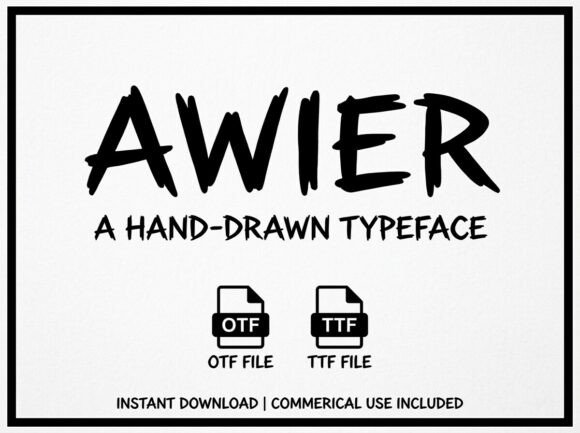
The Awier Font: A Game-Changer for Bold and Creative Designs
Have you ever been in the middle of a design project, and suddenly, you’re stuck on finding the perfect font? I recall a recent experience where I was working on a luxury packaging project, and my client requested a font that would make their brand stand out. After hours of searching, I stumbled upon the Awier Font, and it completely transformed my design. In this article, I’ll share my experience with this avant-garde decorative display font and explore its features, uses, and potential limitations.
First Impressions: What I Love About Awier Font
The Awier Font is a masterpiece of modern typography, engineered to be the focal point of any composition. Here are some aspects that I absolutely love:
• ✨ Unique Artistic Flourishes: The font’s intricate craftsmanship and artistic soul make it perfect for creators who want to add a touch of elegance to their designs.
• ✅ High-End, Polished Finish: Awier Font’s sophisticated look makes it suitable for luxury packaging, editorial layouts, and high-impact headlines.
• 💡 All-Caps Design: By focusing on uppercase characters, the font’s designer has ensured that each letter is a standalone work of art, perfect for attention-grabbing designs.
While Awier Font is an exceptional typeface, there are a few limitations to keep in mind:
• 🤔 All-Caps Limitation: As an all-caps font, it may not be the best choice for body text or designs that require extensive writing.
• ⚠️ Glyphs and Alternates: While the font includes OpenType features, some users may find the glyphs and stylistic alternates a bit tricky to navigate.
The Designer Inspiration Behind Awier Font
The Awier Font was crafted by a talented typographer who sought to create a font that would push the boundaries of modern design. Inspired by the world of luxury and art, the designer aimed to create a typeface that would be both visually striking and sophisticated. The result is a font that is both bold and elegant, perfect for creators who want to make a statement.
Font Name Awier Font
Author Angel_Srapix
Q: Is Awier Font suitable for body text?
A: While Awier Font is an exceptional display font, it’s not ideal for body text due to its all-caps design and limited glyph set.
Q: Does Awier Font include OpenType features?
A: Yes, Awier Font includes OpenType features, glyphs, and stylistic alternates, allowing for advanced typographic control.